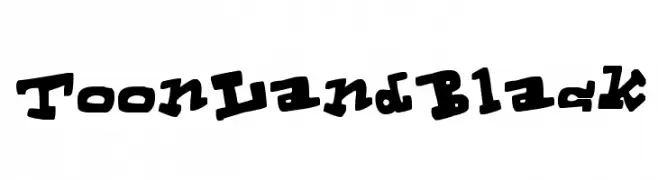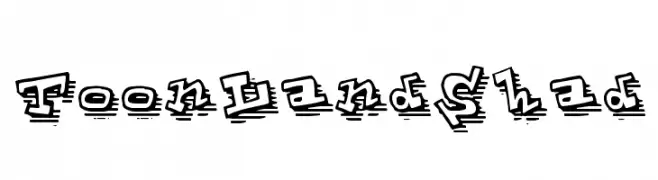
• ToonLand
A playful, cartoonish font with bold outlines and a whimsical, hand-drawn style.
• ToonLandBlack
A bold, cartoonish font with playful, irregular shapes and a whimsical style.
• ToonLandShad
A bold, cartoon-style font with playful shadows and dynamic shapes.
• Top Secret Without Lines Bold
A bold, stencil-style font with a rugged, distressed look.
• Top-Secret-Bold
A bold, stencil-style font with a distressed, vintage appearance.
• Torrebruno
A playful, hand-drawn font with a bold, cartoonish style.
• Torrebruno
A playful, hand-drawn font with bold outlines and a dotted texture.
• Torturer Upright
A modern, geometric font with a futuristic and cohesive design.
• Torturer Bound
A bold, geometric font with enclosed characters and a futuristic style.
• Torturer Crushed
A bold, geometric font with boxed uppercase letters and consistent design.